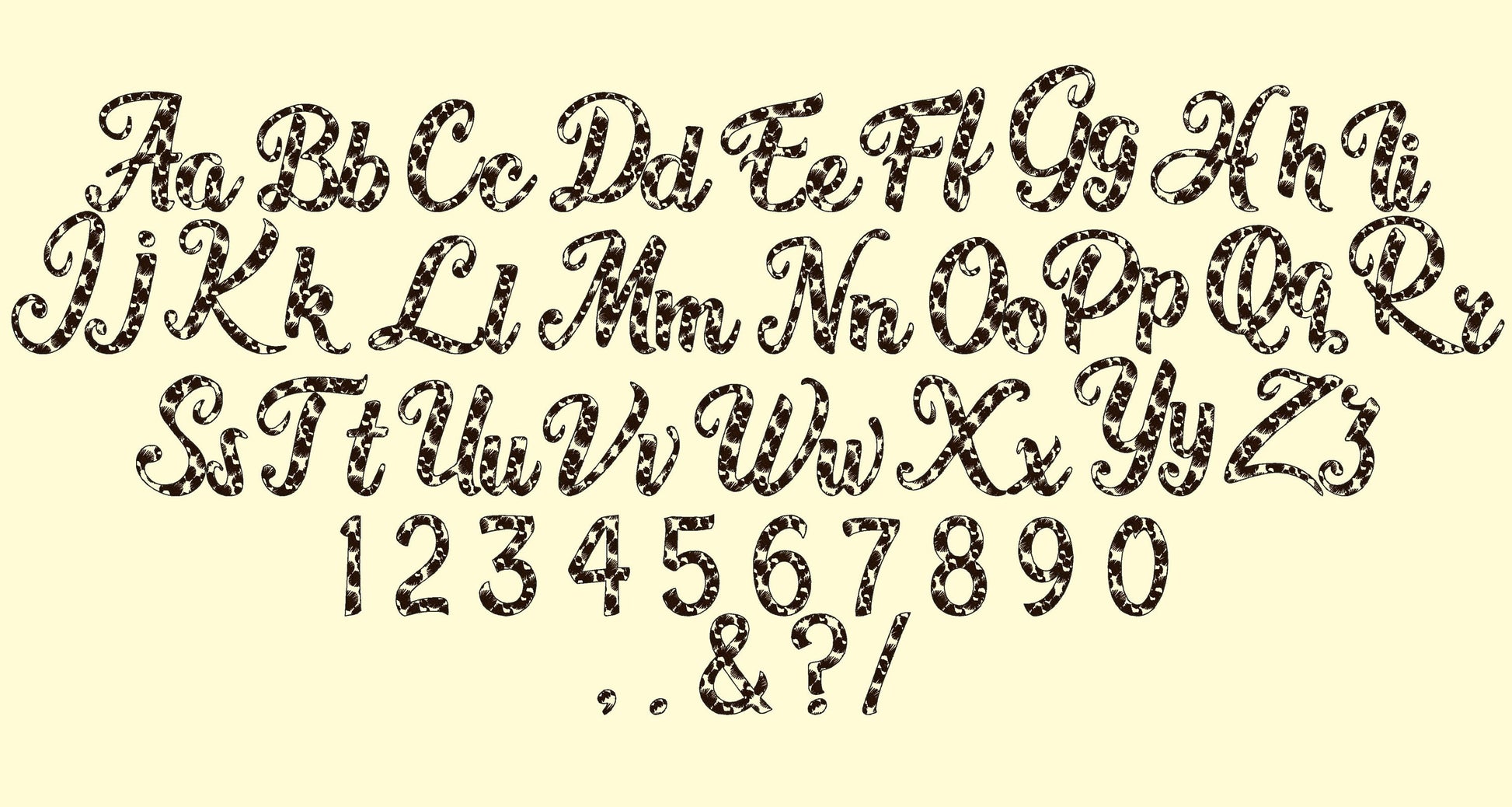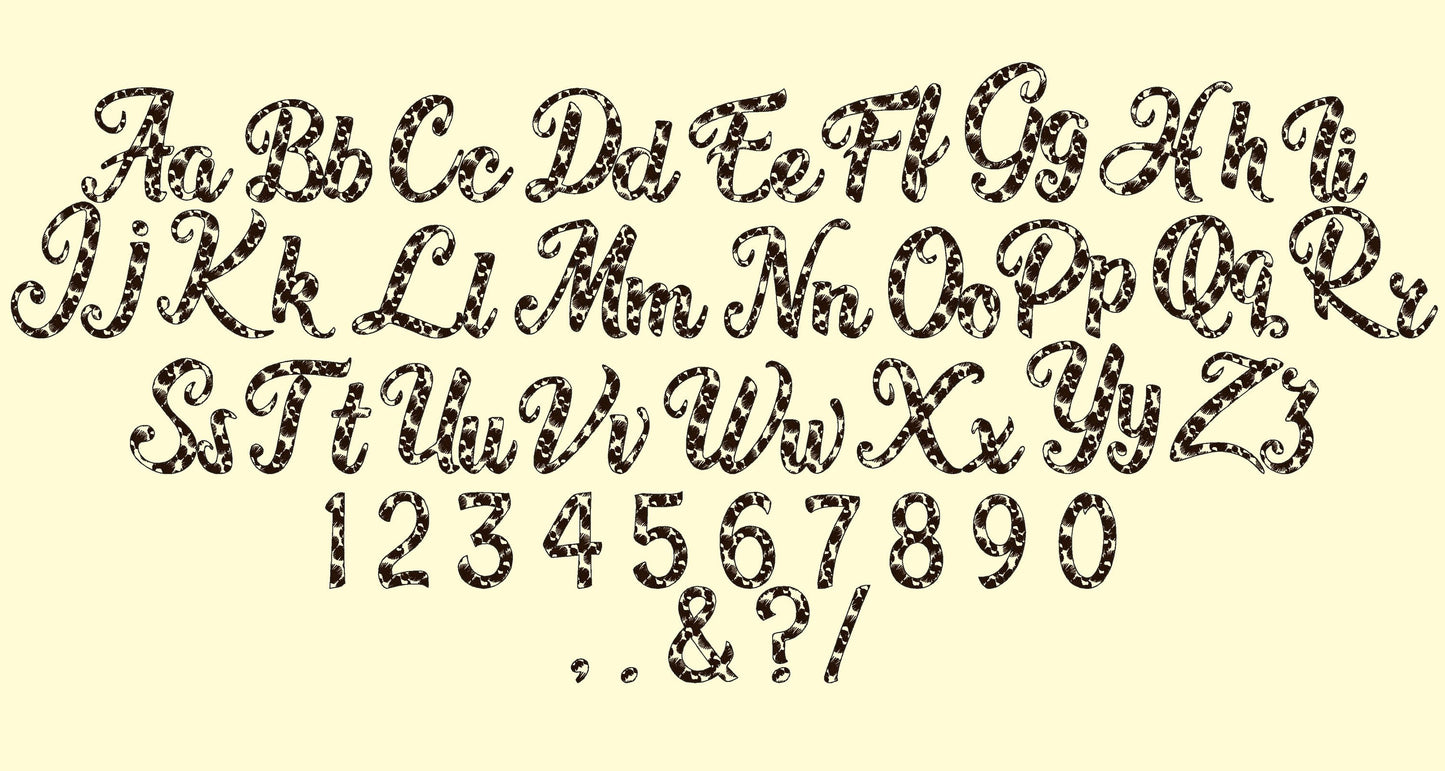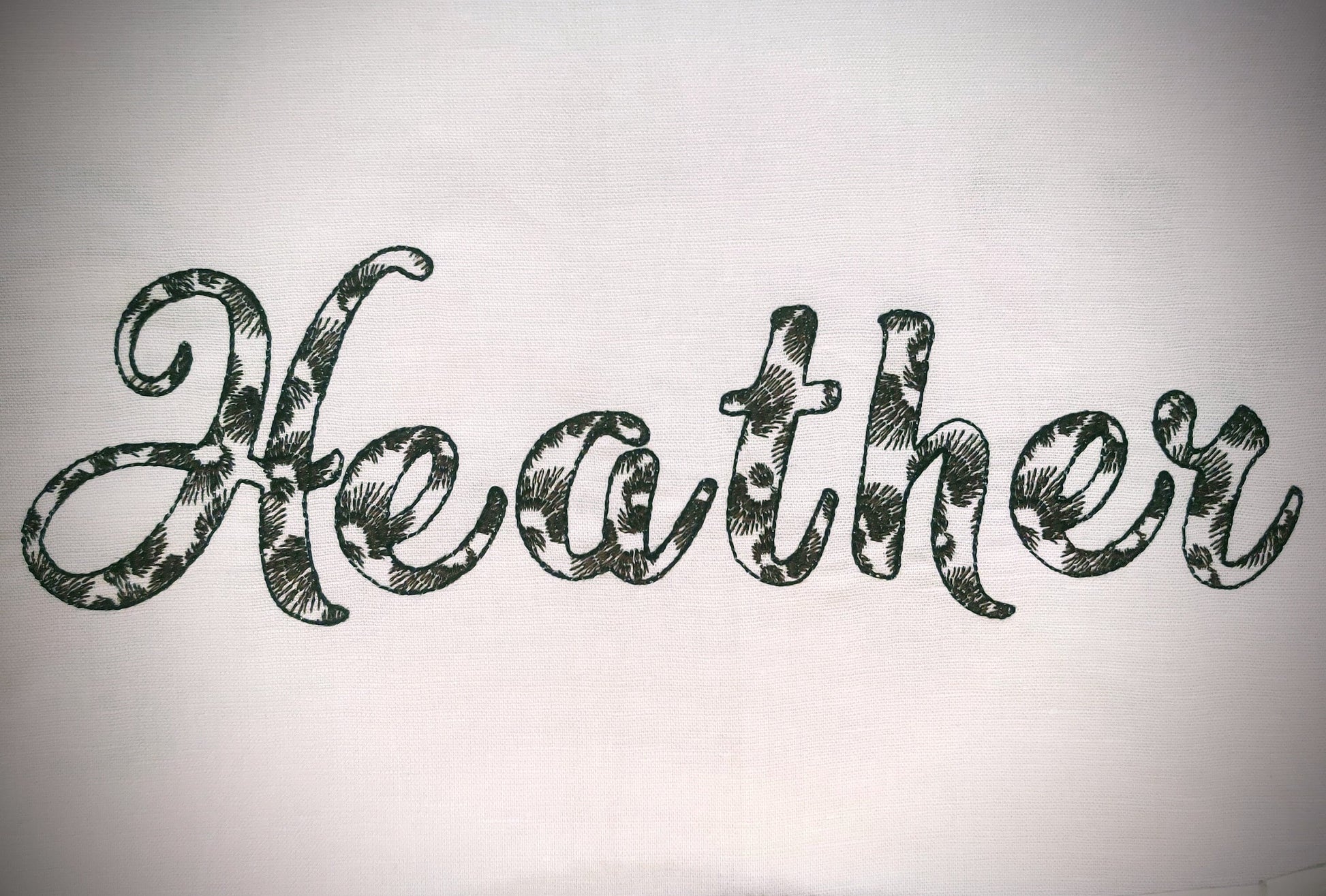
Leopard Spots Patterned Handwritten Font
Or click to open the linkA handwritten font with a leopard spots pattern in light stitching that looks like lace. Fun for girls' shirts, bags, pillows and names.
Uppercase and lowercase letters, numbers 0 to 9 and punctuation, in six sizes: 2, 2.5, 3, 3.5, 4 and 4.5 inches. The leopard spots are part of each letter, and the quick stitching lets the fabric show through.
- Leopard spots light stitch font
- Uppercase and lowercase letters, numbers 0-9, punctuation
- 6 sizes, 2 to 4.5 in